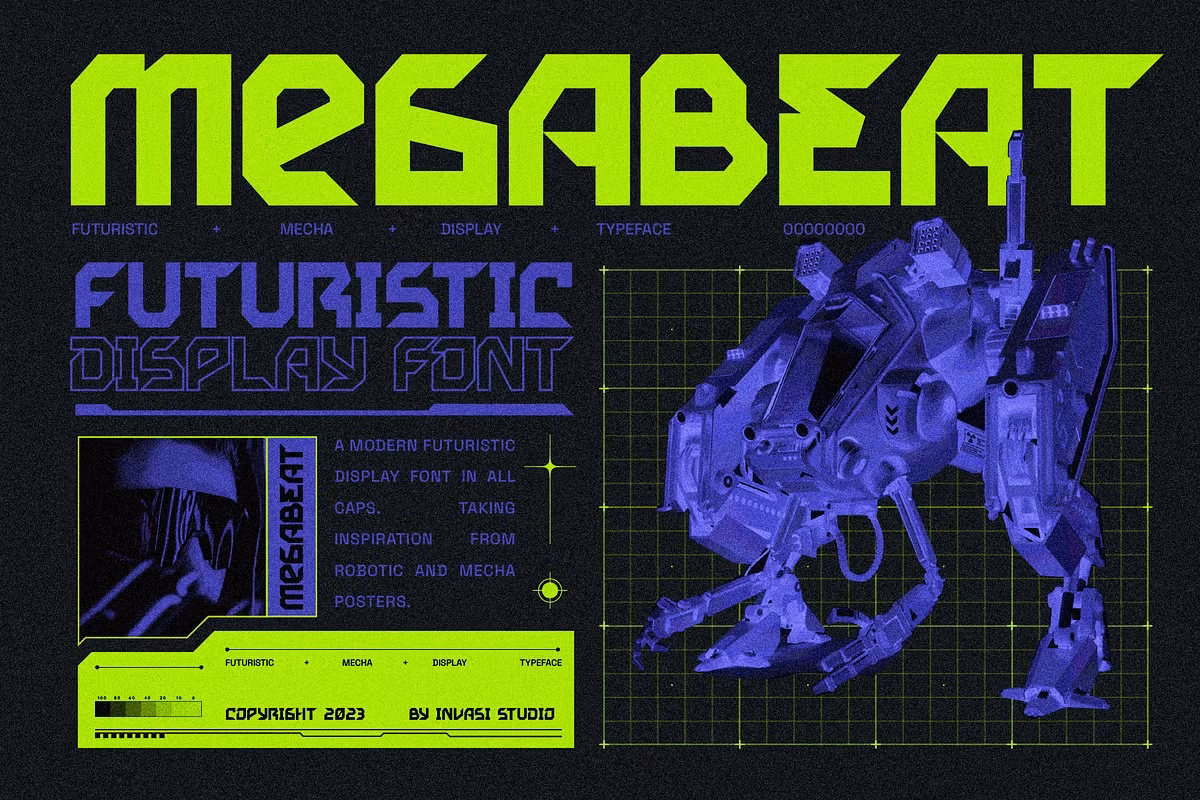
Megabeat – Retro Futurism Fonts Free Download is a bold and dynamic typeface inspired by the aesthetics of both vintage and futuristic design. With sharp lines, geometric shapes, and a striking presence, Megabeat is perfect for music posters, album covers, retro branding, movie titles, and futuristic projects.
This font captures the essence of both retro nostalgia and forward-thinking style, making it ideal for designs that aim to evoke a sense of movement and innovation. Whether you're creating a futuristic logo or promoting a retro-inspired event, Megabeat adds depth, impact, and a touch of innovation to your typography.